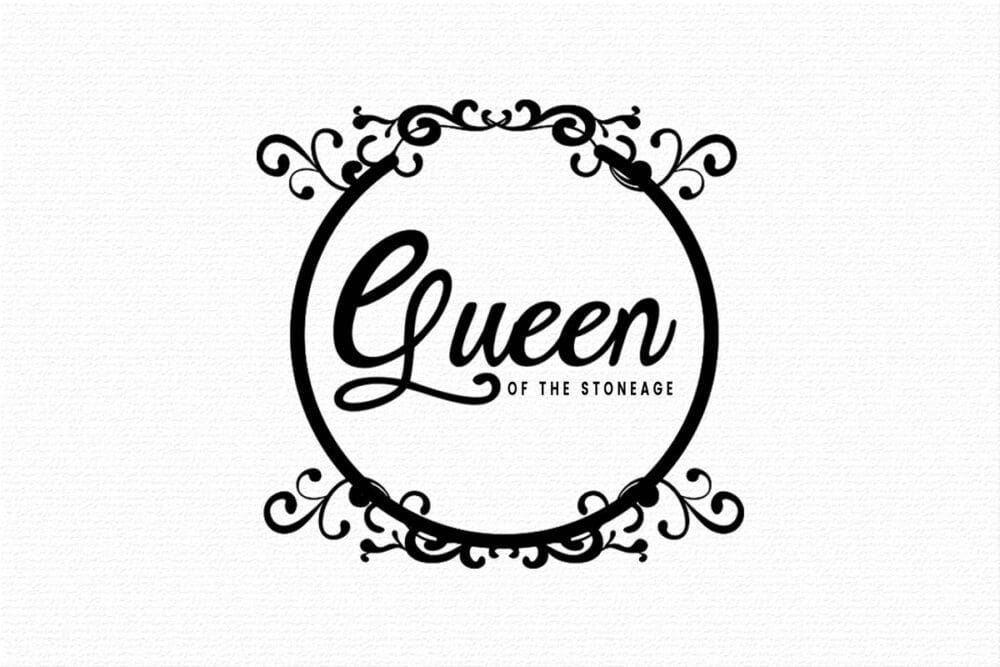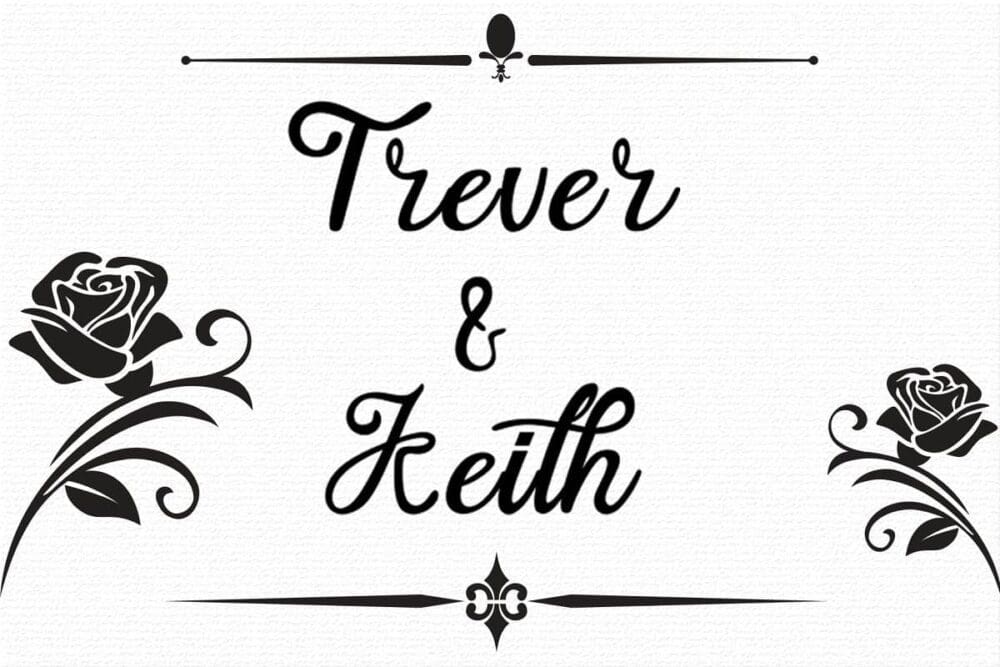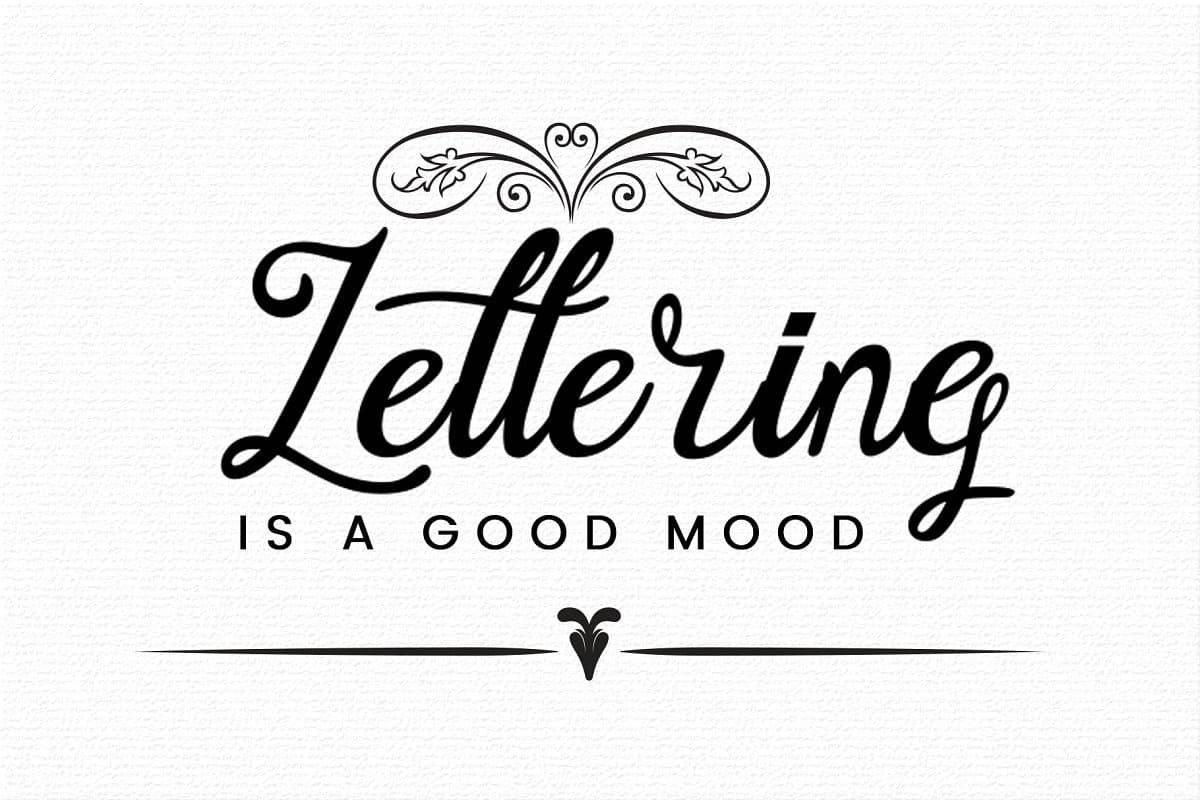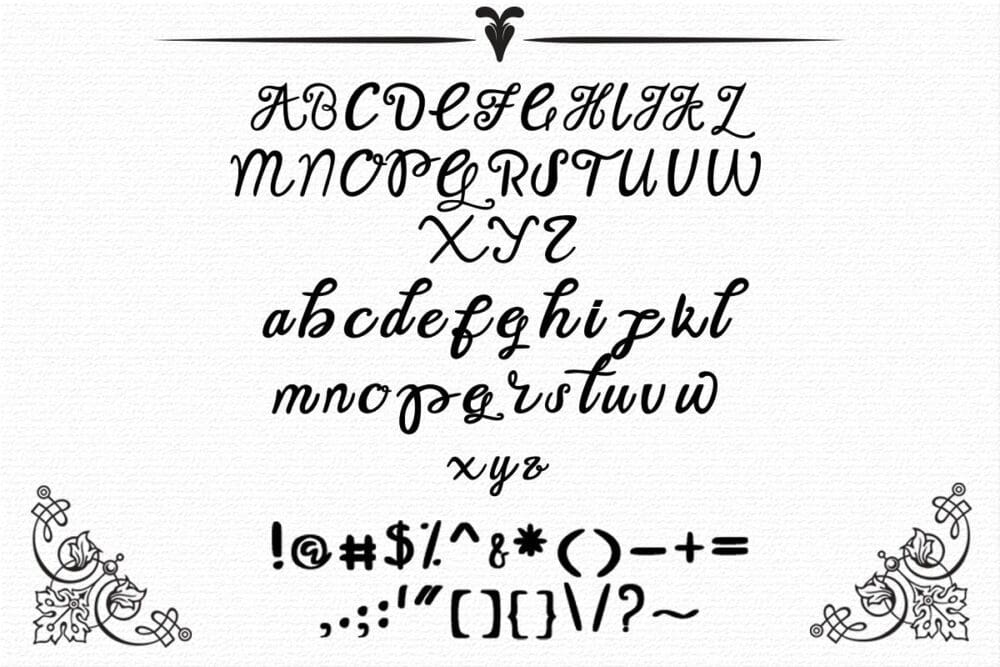
Keith Vintage Font
Keith Vintage Font, elegant and modern, also suitable for vintage design. Perfect for branding projects, Clothing Branding, magazines, books, greeting cards, or any other projects.